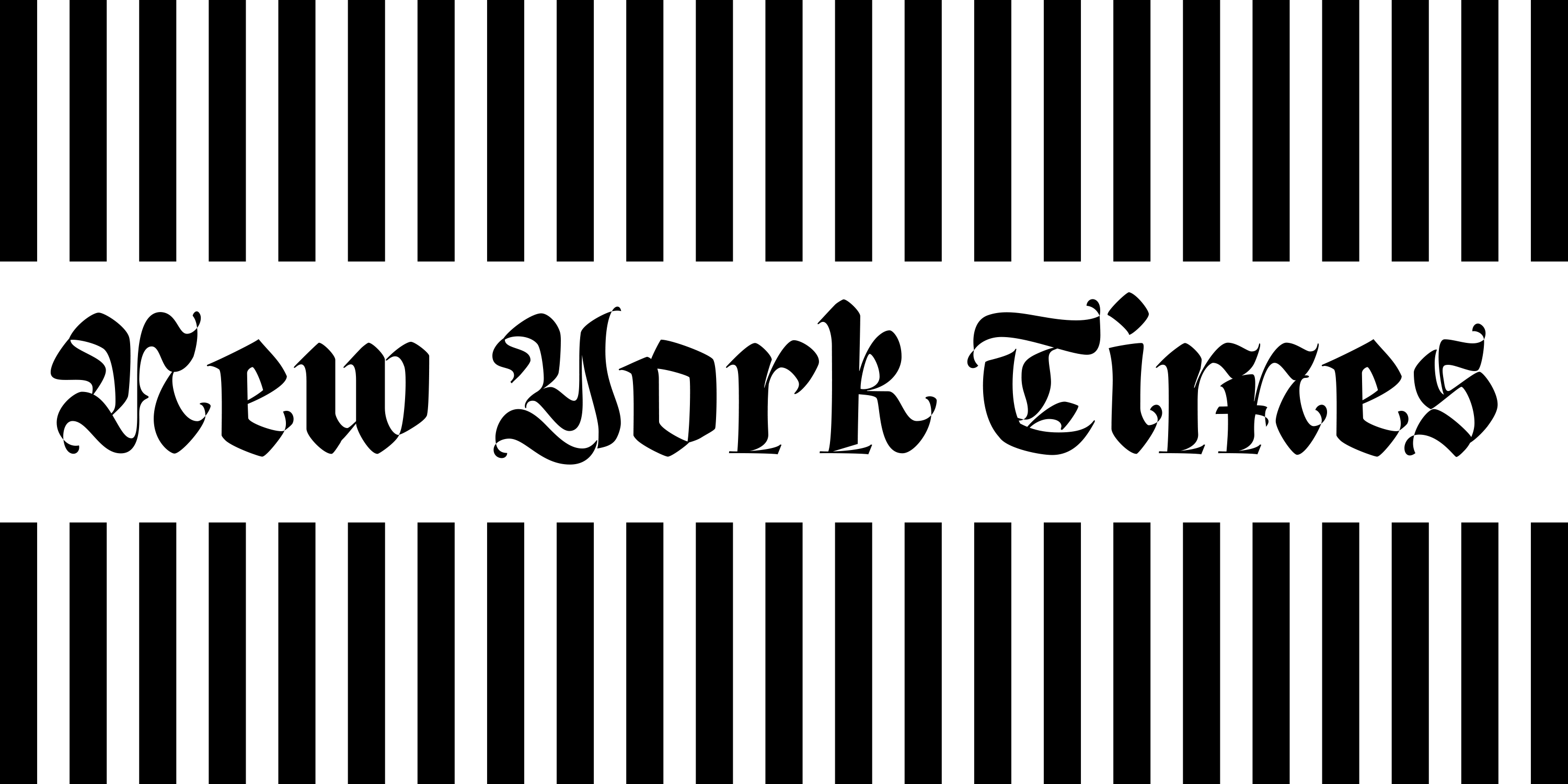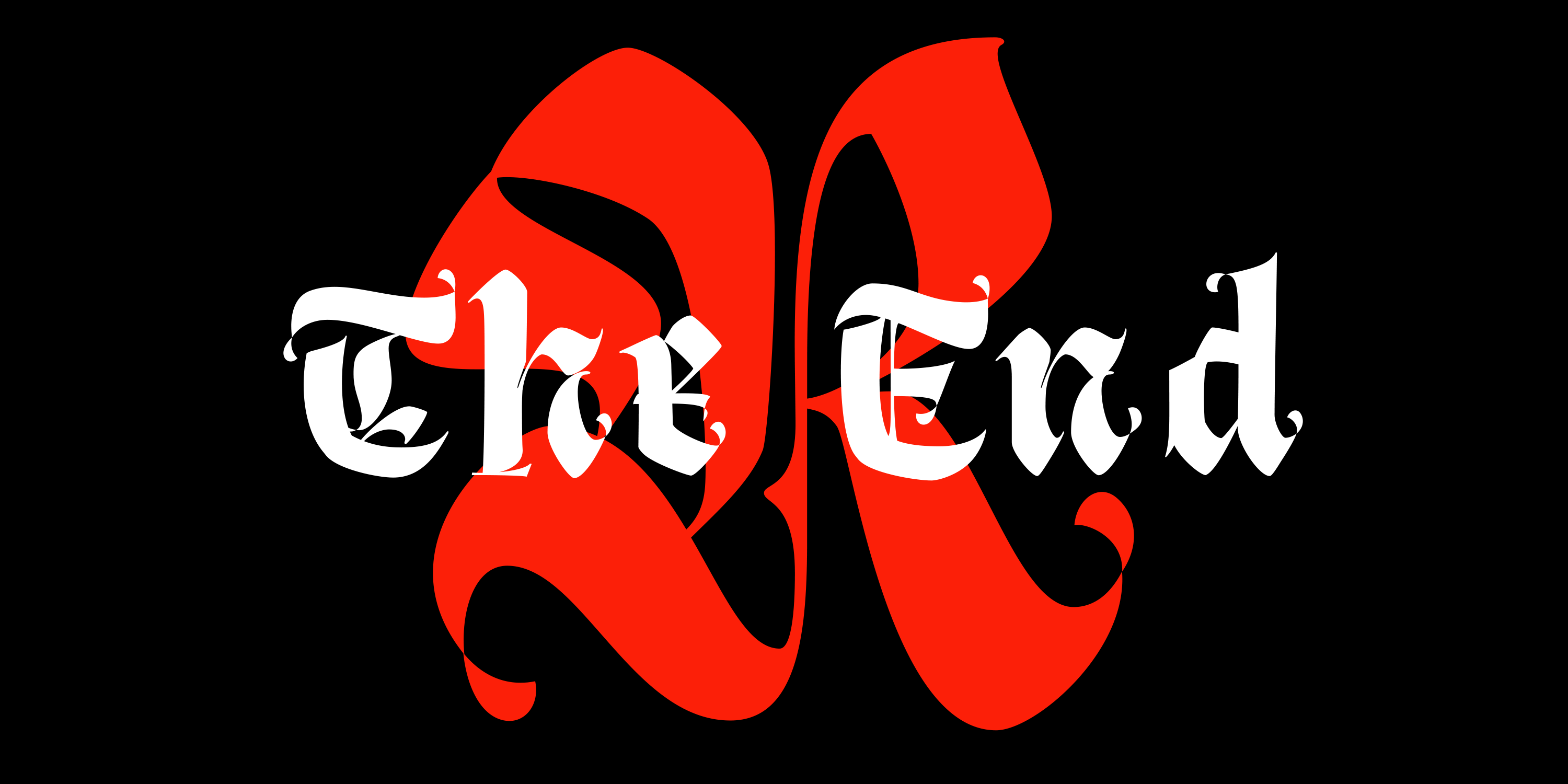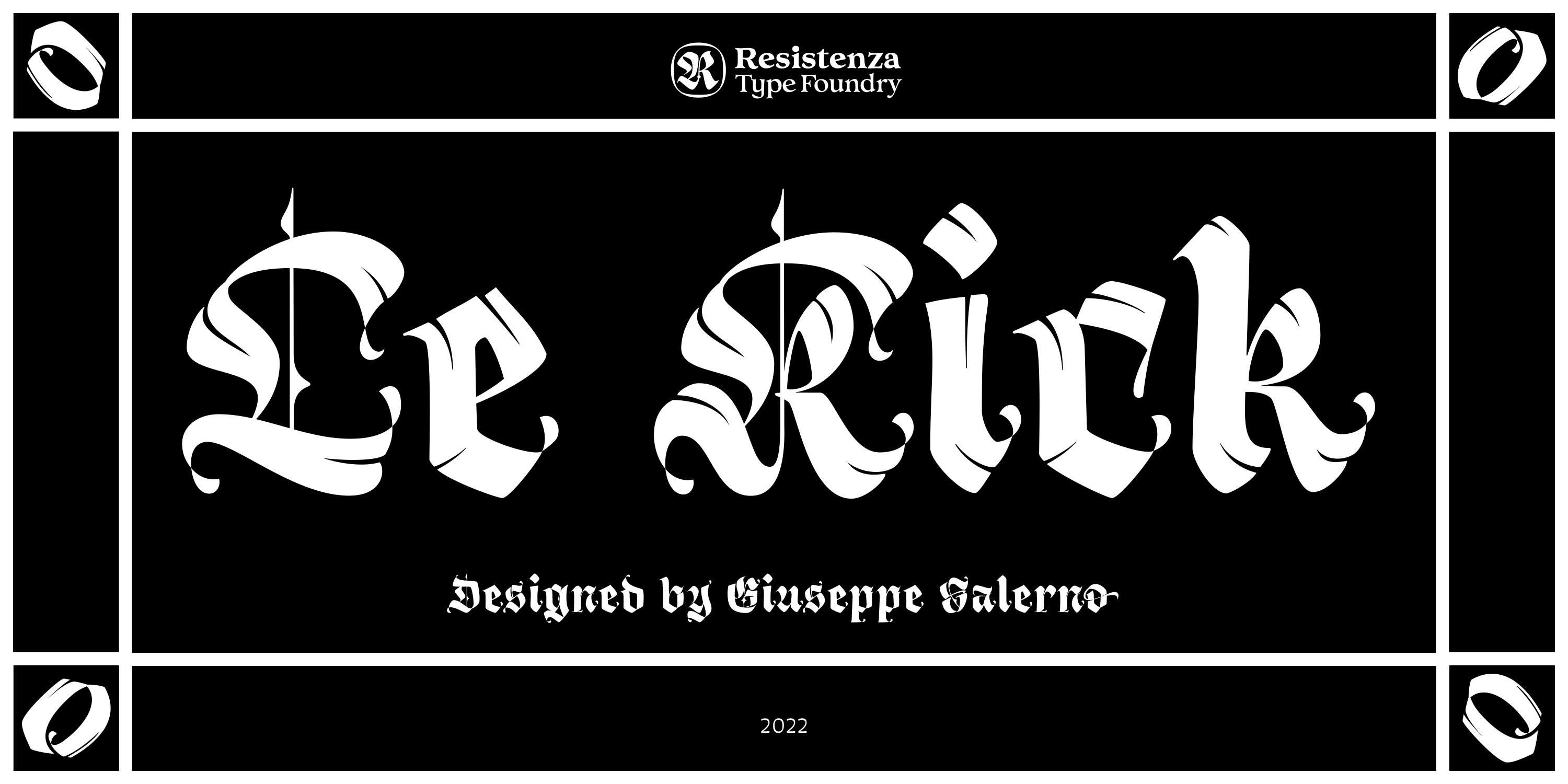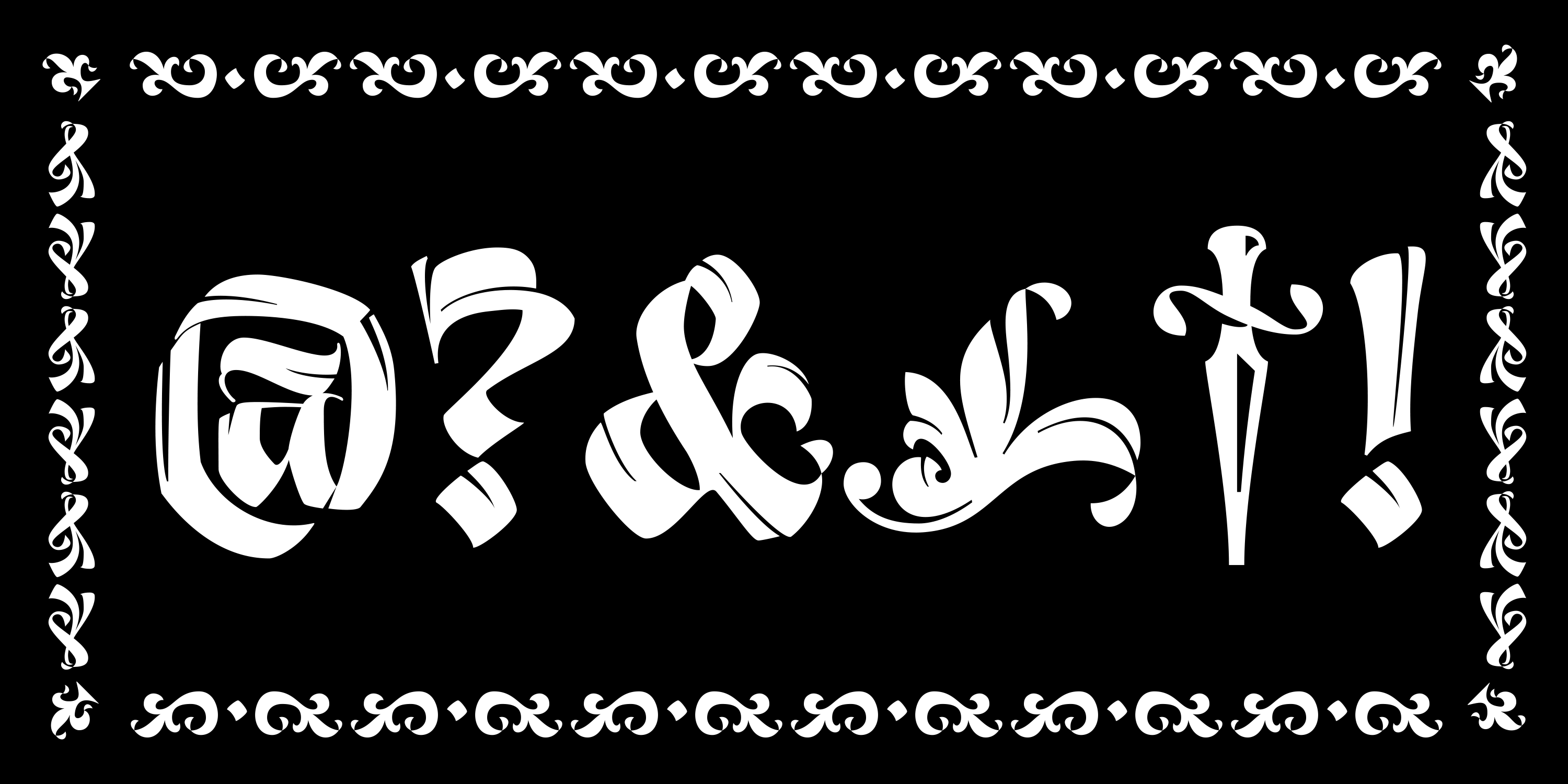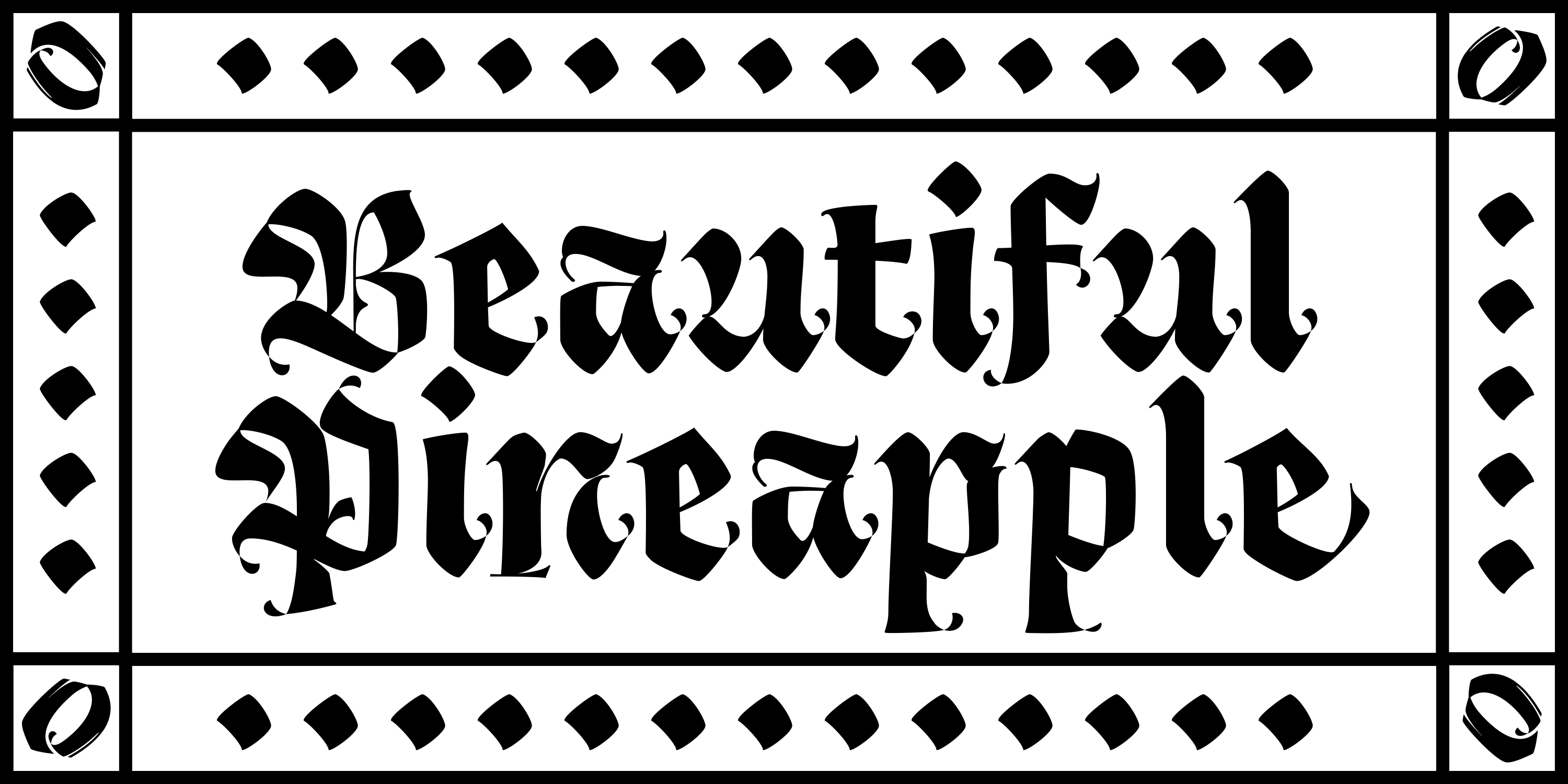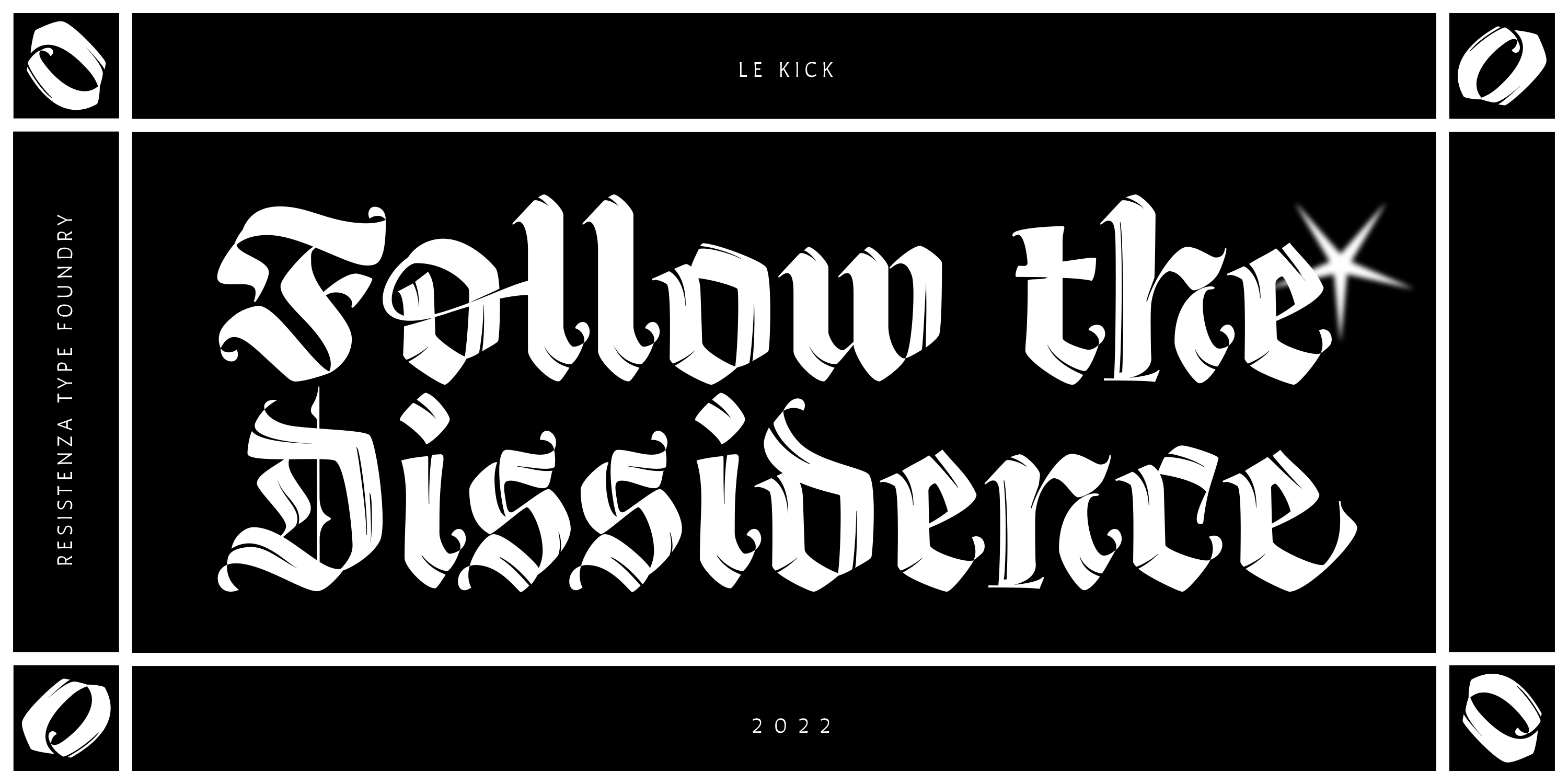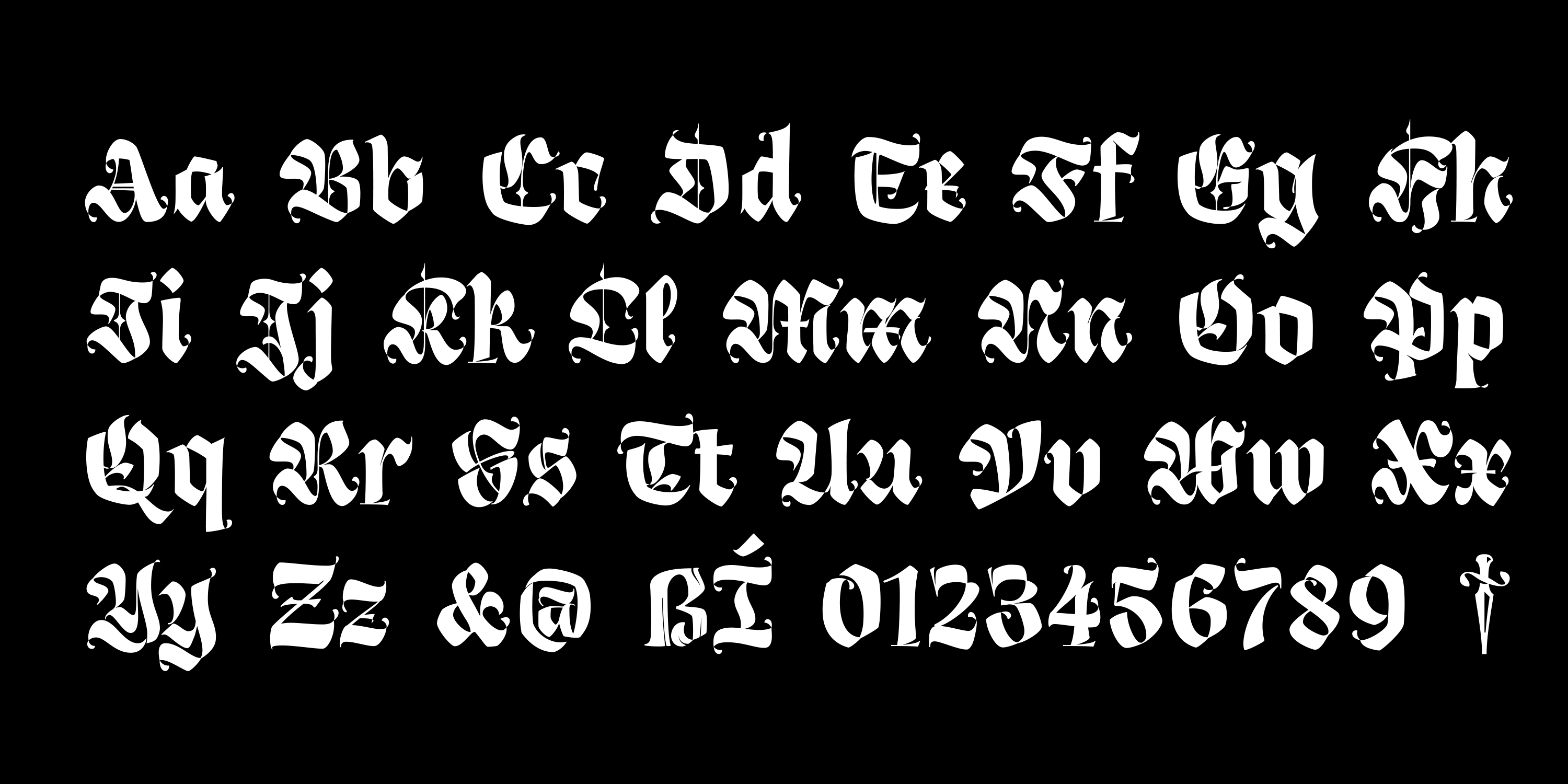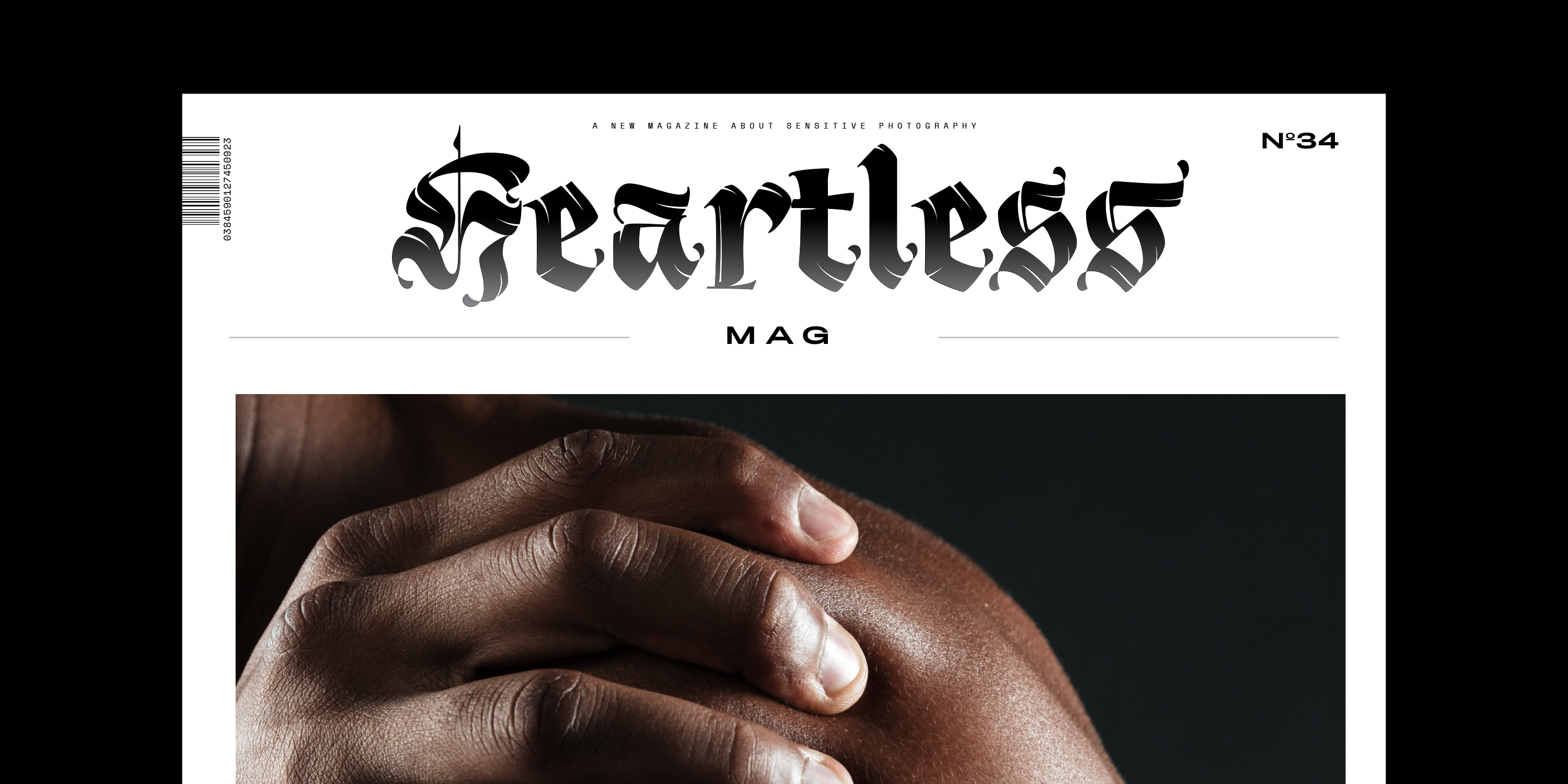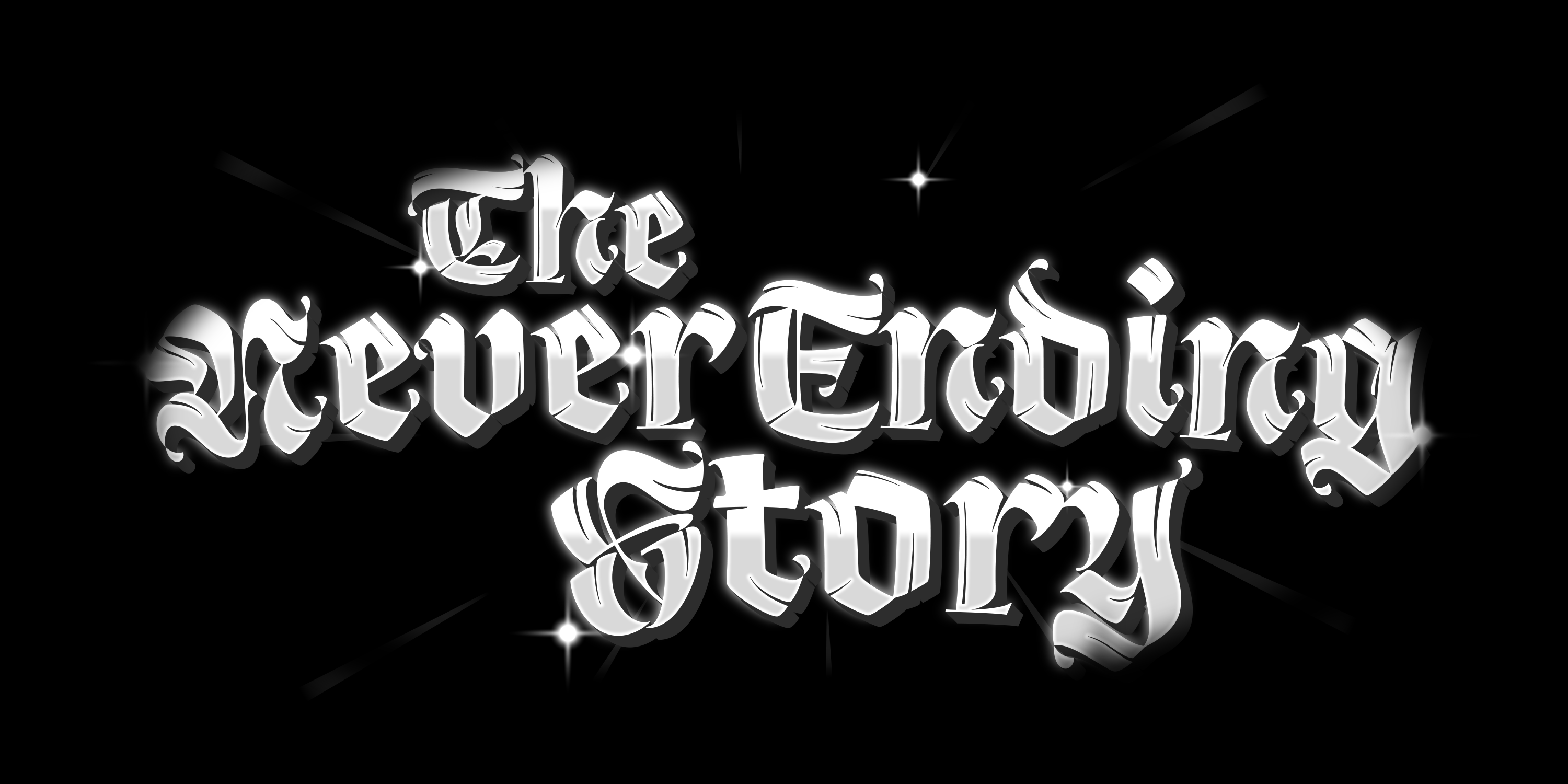
LeKick
Regular
Brush
Blackletters for Branding
LeKick
Designed by Resistenza Type FoundryIntroducing LeKick. Inspired by Fraktur script with a contemporary flare, LeKick is a blackletter display face. This font has been designed with a flat brush and ink, choose between two styles; Brush, which demonstrates the strokes and construction of each letterform, or Regular. The perfect typeface for typographic creations such as book covers, headlines, and banners.